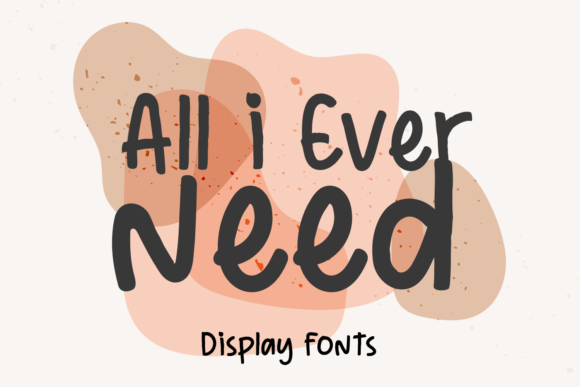
Journey into a realm of creativity with All I Ever Need, the enchanting script font that captures the spirit of playfulness and charm.
With its whimsical curves and lively strokes, All I Ever Need is the perfect companion for those seeking to add a touch of magic to their digital artistry. Dive into the world of comics, where All I Ever Need dances across the panels, bringing life to your characters and stories. Its vibrant personality shines through, captivating readers and drawing them into your captivating narratives.
Embrace the versatility of All I Ever Need, a font that seamlessly adapts to a myriad of projects. Let your imagination soar as you craft stunning logos, eye-catching social media posts, and captivating website designs. Its playful nature adds a spark of joy to invitations, greeting cards, and personal branding, making every creation an expression of your unique style.
All I Ever Need is more than just a font; it's an invitation to unleash your creativity and let your imagination run wild. Its enchanting aura transforms ordinary designs into captivating masterpieces, leaving a lasting impression on all who encounter your work. Join the creative revolution and make All I Ever Need your go-to font for captivating designs that speak volumes.